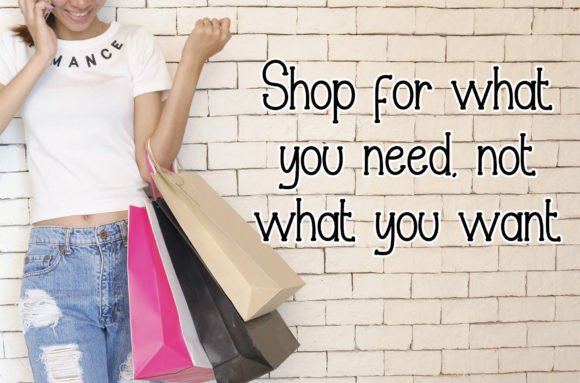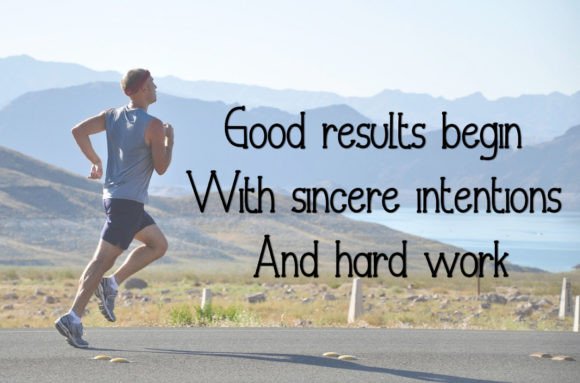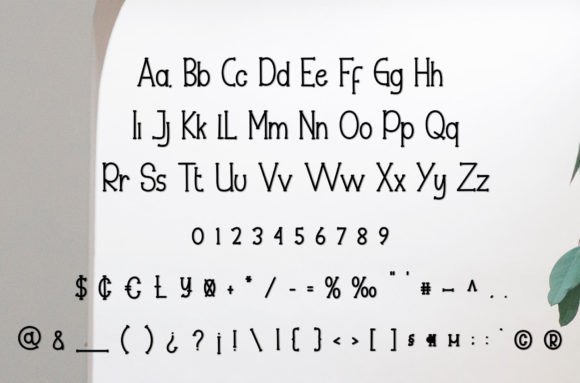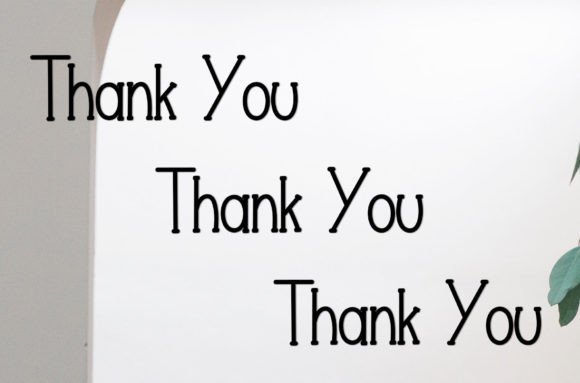
The Perfect Font for a Designer’s Dream Project
Imagine you’re sitting at your desk, staring at a blank canvas, and suddenly, the perfect idea strikes you. Your mind is racing with creativity, and you can envision the entire design unfolding before your eyes. This is the moment when the right font can make all the difference. And that’s where the Handsome Font comes in – a trendy handwritten font that adds an air of sophistication to any design project.
With its contemporary atmosphere and impeccable form, the Handsome Font is inspired by timeless classic calligraphy. Its elegant and refined style makes it perfect for adding a touch of class to your designs. Whether you’re working on a wedding invitation, a logo, or a social media graphic, the Handsome Font is sure to elevate your work to the next level.
Handsome Font Key Features
- Font Family: Handsome Font is a serif font family designed to evoke a sense of elegance and sophistication.
- Unique Characteristics: Features a unique blend of classic and modern elements, with subtle flair and ornate details that add a touch of sophistication to any design.
Handsone Font Review
Overall, I’m a bit mixed on “Handsome Font”. It’s got some nice qualities, but it’s not without its limitations. Let’s start with the good stuff.
- ✨ Unique character: “Handsome Font” has a distinct personality that sets it apart from more generic font options. It’s perfect for projects where you want to add a touch of sophistication and elegance.
- ✨ Versatile: I’ve used “Handsome Font” for a variety of projects, from business cards to menus, and it’s always looked great. It’s a great choice if you need a font that can adapt to different contexts.
- ✨ Customizable: “Handsome Font” has a lot of customization options, including font sizes, colors, and line heights. This makes it easy to tailor the font to your specific needs.
Now, let’s talk about the limitations.
- ⚠️ Limited language support: Unfortunately, “Handsome Font” doesn’t support all languages, which can be a problem if you need to use it for multilingual projects.
- ⚠️ Not ideal for small text: While “Handsome Font” looks great at larger font sizes, it can get a bit messy when used for smaller text. This can make it difficult to read.
Overall, I’d give “Handsome Font” 3.5 out of 5 stars. It’s a solid choice for projects where you want to add a touch of elegance, but it’s not perfect. If you’re willing to work around its limitations, it can be a great addition to your design toolkit.
Getting the Most Out of Handsome Font
For the best results, use Handsome Font in combination with bold or italic styles to add emphasis.
Experiment with different font sizes to create visual hierarchy and balance.
Consider using Handsome Font for headings and subheadings to create a cohesive look.
Handsome Font is ideal for:
2. Luxury branding and packaging.
3. High-end advertising and marketing materials.